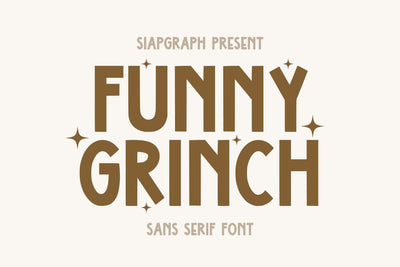
Funny Grinch - Fun Sans Serif Font
Funny Grinch is a playful sans-serif font perfect for adding a touch of whimsy and fun to your designs. With its bold, rounded letters and unique style, this font is ideal for creating cheerful designs for branding, greeting cards, and more.